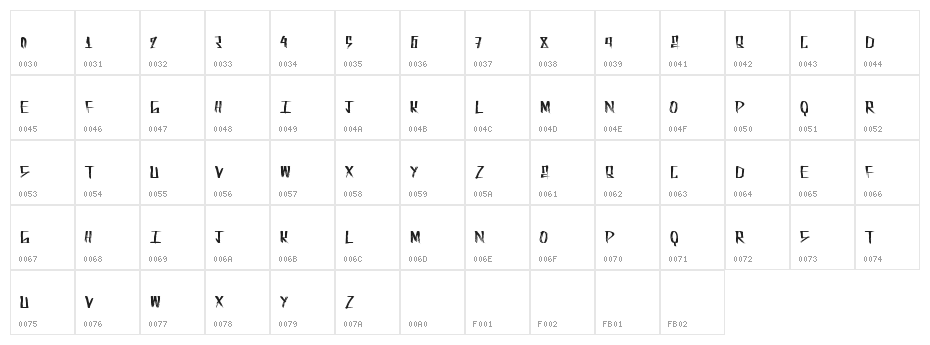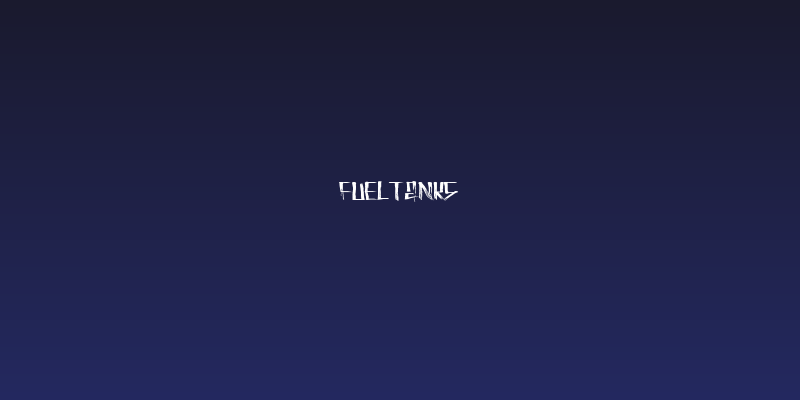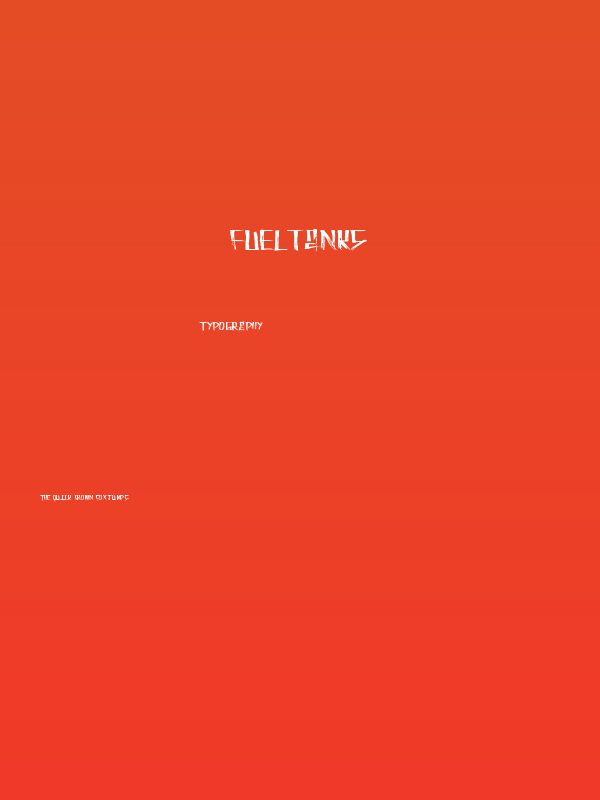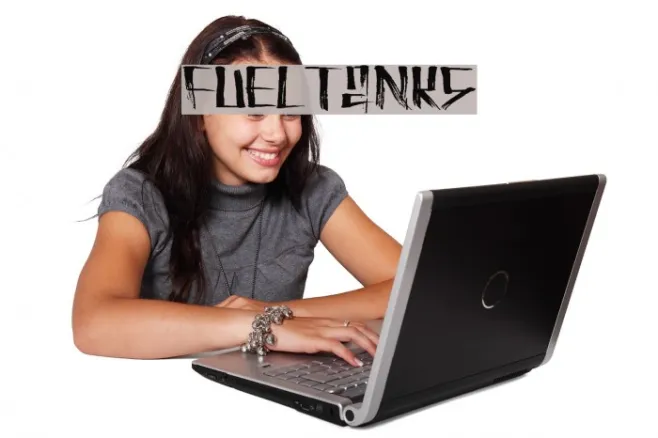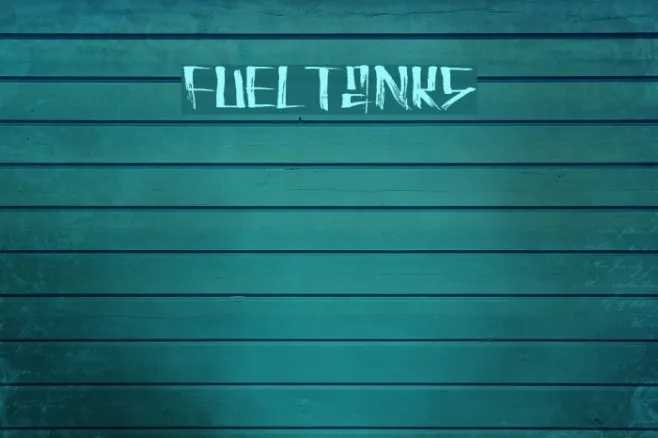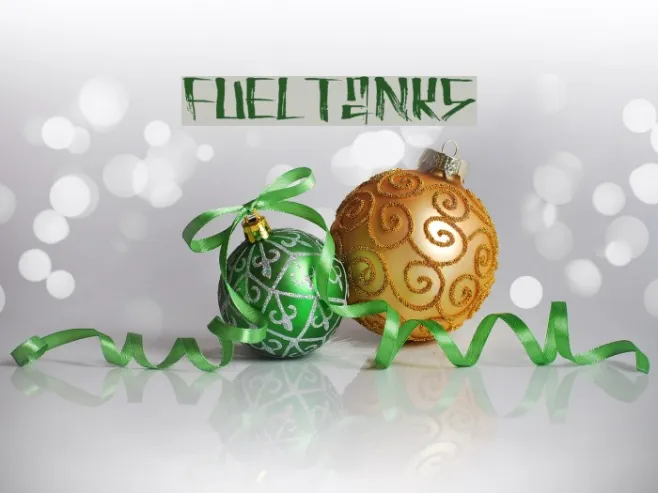
FuelTanks Font
FuelTanks Description
This font presents a rugged, distressed appearance, characterized by its uneven strokes and jagged edges. The letters seem to be hand-drawn with a brush-like texture, giving it a raw and energetic feel. The uppercase and lowercase letters maintain a consistent style, with sharp angles and a slightly chaotic arrangement. Numbers and special characters follow the same aesthetic, ensuring a cohesive look across all glyphs. The font's unique style makes it stand out, ideal for projects that require a bold and unconventional typeface.
| Overall Style | Modern, Grunge |
| Proposed Projects | Perfect for album covers, posters, graffiti art, and edgy branding projects. |